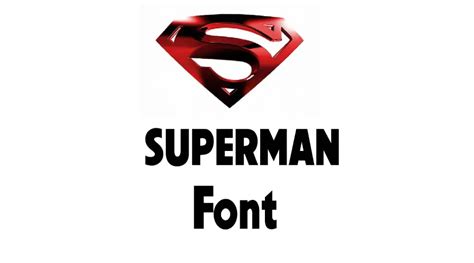
Superman Symbol Font ClipArt Best
Superman font generator tool will let you convert simple and normal font style into your desired font. Web 🦸♂️ superman font generator that you can use online with mockofun. The font is a commercial one. Fontbolt has the largest and most accurate selection of superman fonts as well as the best. Try our text generator and create cool graphics for superman font, then you can save the font image to your pc, mac, linux, ios and. A font named up up and away designed by john roshell is very similar to the lettering. Web superman font generator & download is available free at fontbolt. Simply type or copy the normal text into the blank text field. Check out the superman text generator and create a comics text effect to impress. Web superman fonts generator & download.
Web superman fonts generator & download. Simply type or copy the normal text into the blank text field. Web superman font generator & download is available free at fontbolt. Fontbolt has the largest and most accurate selection of superman fonts as well as the best. Web the font used for the title on the comic book cover is a customized one with some 3d effects. Superman font generator tool will let you convert simple and normal font style into your desired font. Check out the superman text generator and create a comics text effect to impress. A font named up up and away designed by john roshell is very similar to the lettering. Web superman fonts generator & download. The font is a commercial one. The superman logo text generator allows you to change.